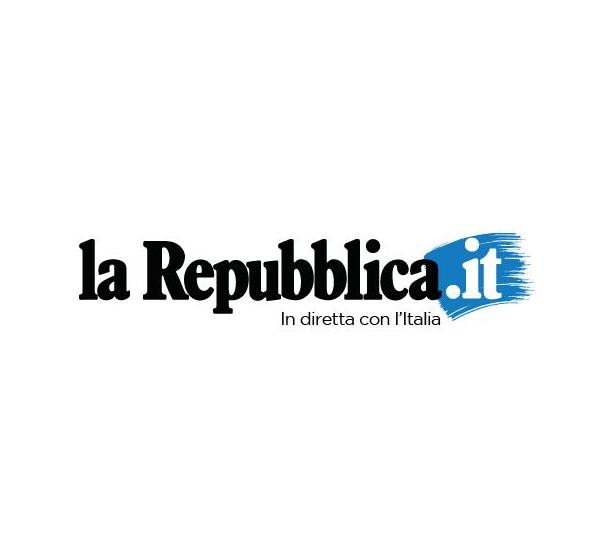
la Repubblica Font
Fonts in Usela Repubblica is an Italian daily newspaper founded in 1976 by Eugenio Scalfari. It is known for its left-leaning political stance and its focus on investigative journalism.
La Repubblica's logo features the French old-style serif font, Plantin Condensed Bold, created by Frank Hinman Pierpont and published by Monotype. You can learn more about it here.